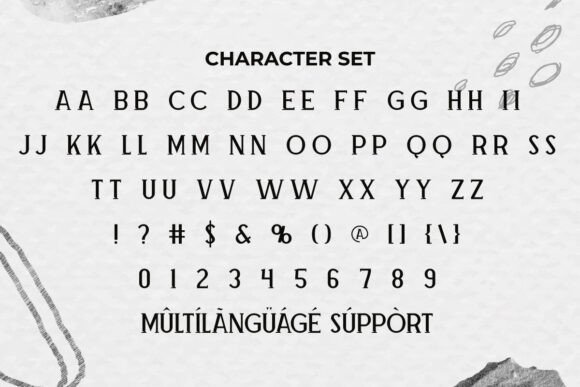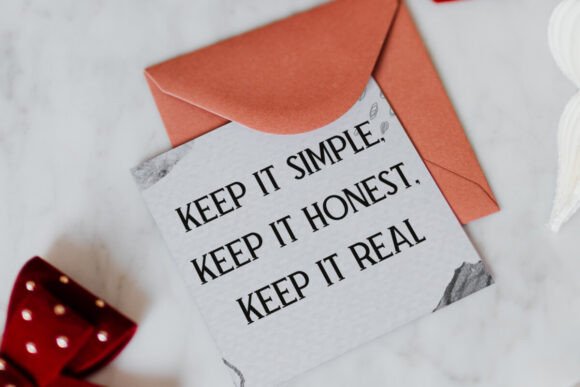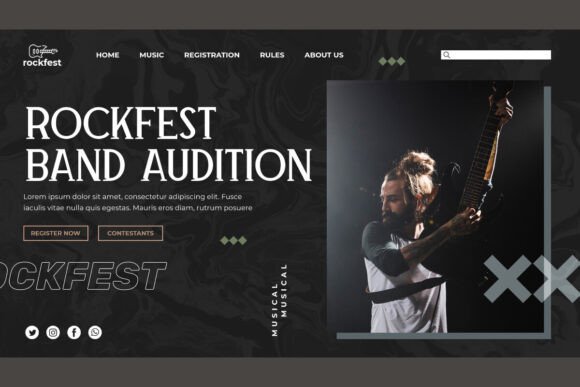
Introduction to Morgamon Font
Have you ever stared at a blank canvas, feeling like your creative project is stuck in neutral? The blank page can be intimidating, but what if you had the perfect tool to get those creative juices flowing? For designers, the right font can make all the difference. That’s where the Morgamon Font comes in – a stunning, manly serif display font that’s about to take your designs to the next level.
With its unique blend of traditional serif style and modern flair, the Morgamon Font is a game-changer for any creative project. Whether you’re working on a brand image, custom design, or product packaging, this versatile font is sure to impress. And the best part? It’s available for free download, making it an invaluable design resource for designers of all levels.
But what really sets the Morgamon Font apart is its high-quality design, which features a transparent background and a level of detail that’s simply unmatched. Whether you’re working on a simple quote or a complex signage project, this font is sure to bring your design to life.
Key Features of Morgamon Font
- Unique and elegant design, perfect for creative projects and presentations.
- High-quality font with transparent background, ideal for use in digital designs.
- Single font file with multiple styles and weights, offering flexibility in design.
- High-resolution design, suitable for use in print and digital media up to 300 DPI.
- Perfect for use in various creative projects, including logos, branding, and typography-based art.
Honest Review: Morgamon Font
I recently had the chance to work with the Morgamon Font on a creative project, and I must say it’s been a great addition to my design resources. The Morgamon Font is a high-quality font that’s perfect for any creative project.
Here’s what works well:
- ✨ The font has a unique and stylish design that sets it apart from other fonts.
- ✨ The transparent background makes it easy to customize and integrate with any design.
- ⚠️ The font may not be as versatile as some other fonts, so it’s best suited for specific design projects.
Overall, I’m impressed with the Morgamon Font and would recommend it to any designer looking for a high-quality design resource. With its unique design and free download option, it’s a great addition to any design toolbox.
Tips for Getting the Most Out of Morgamon Font
To get the most out of the Morgamon Font, use it in conjunction with other design resources, such as high-quality images and graphics. Experiment with different font sizes, colors, and styles to create a unique and eye-catching design.
Common Use Cases for Morgamon Font
The Morgamon Font is ideal for creative projects that require a high-quality, transparent background font. Some common use cases include designing business cards, brochures, and other marketing materials, as well as creating digital art and graphics.